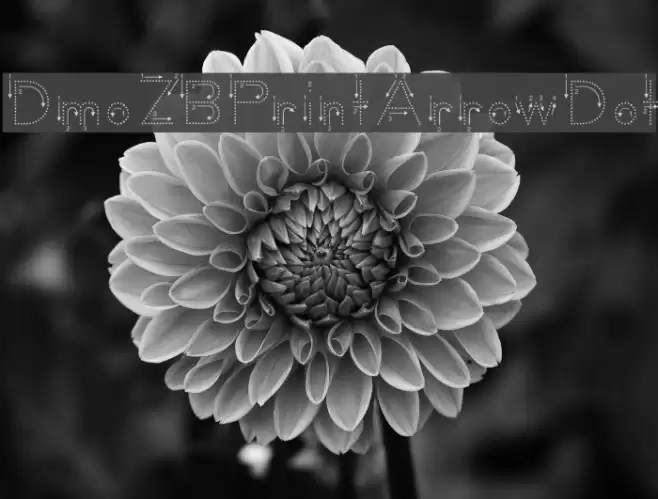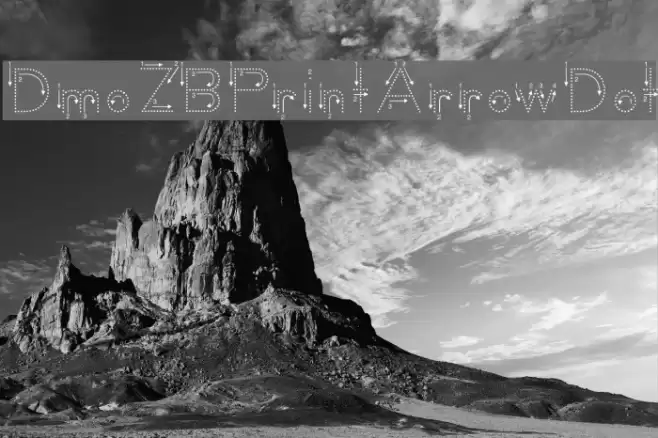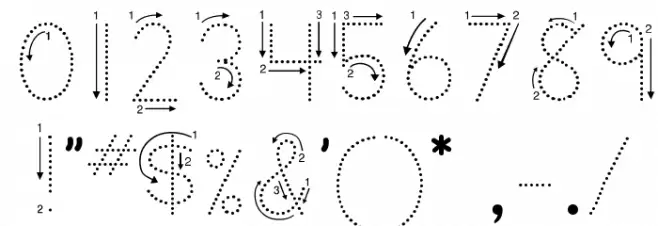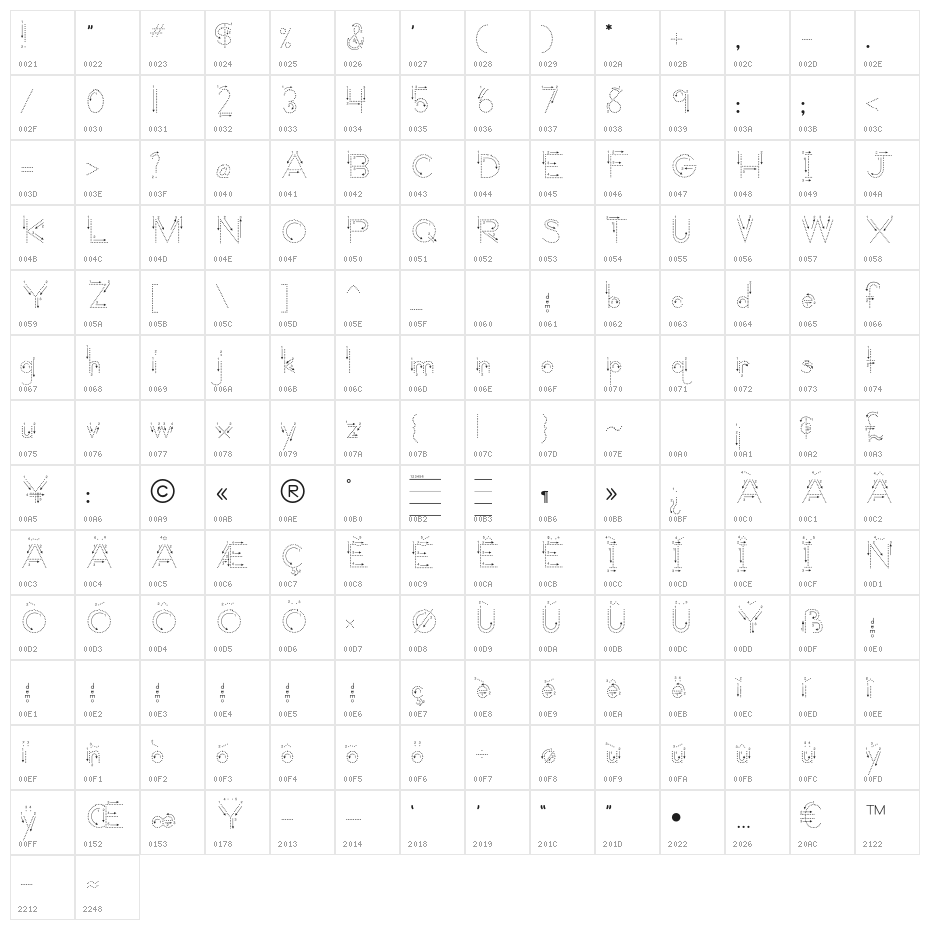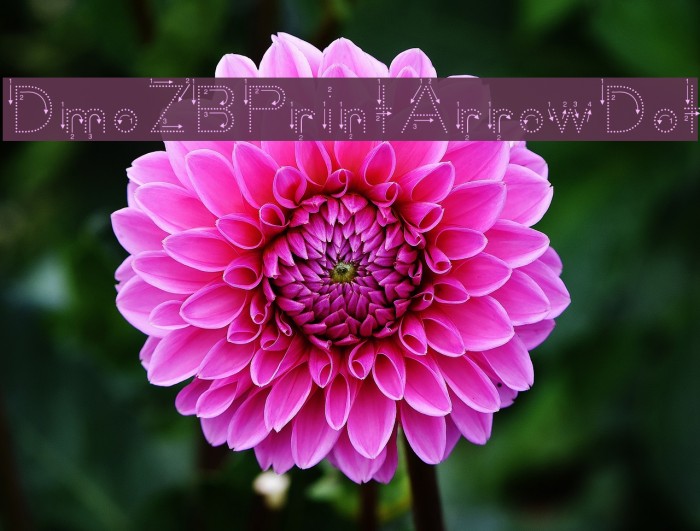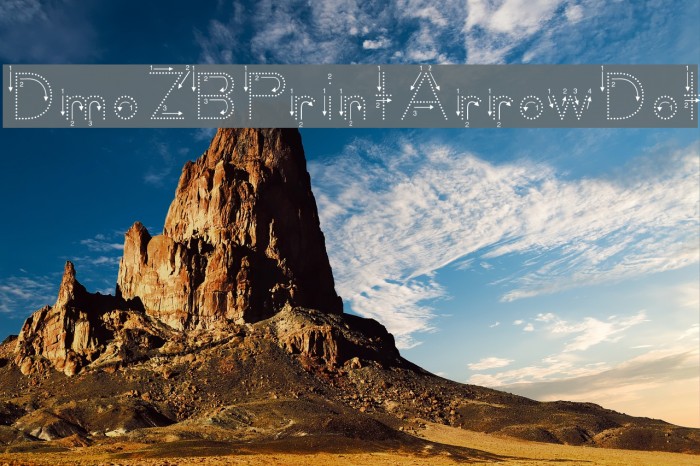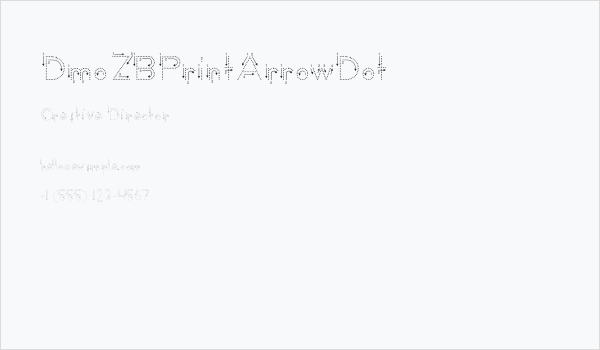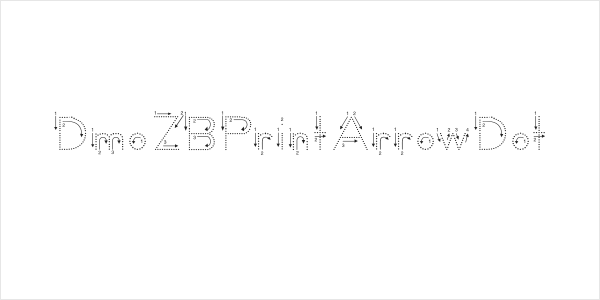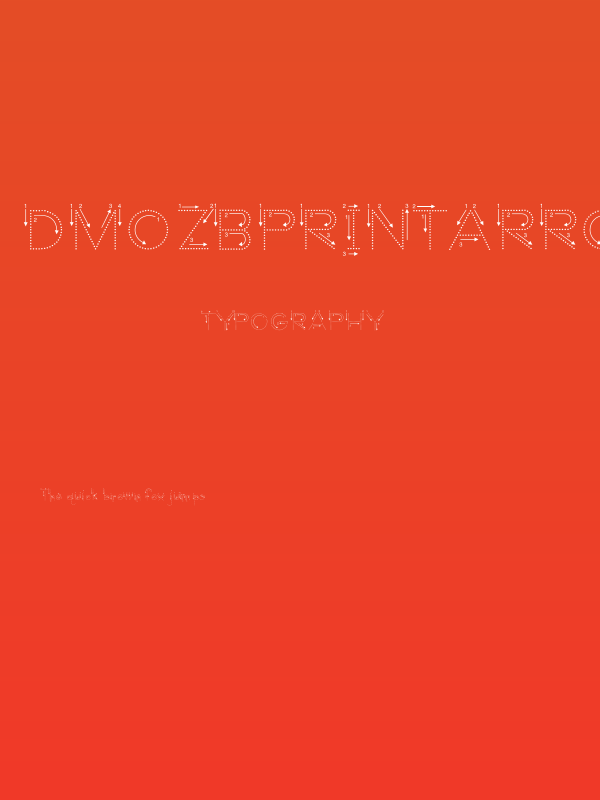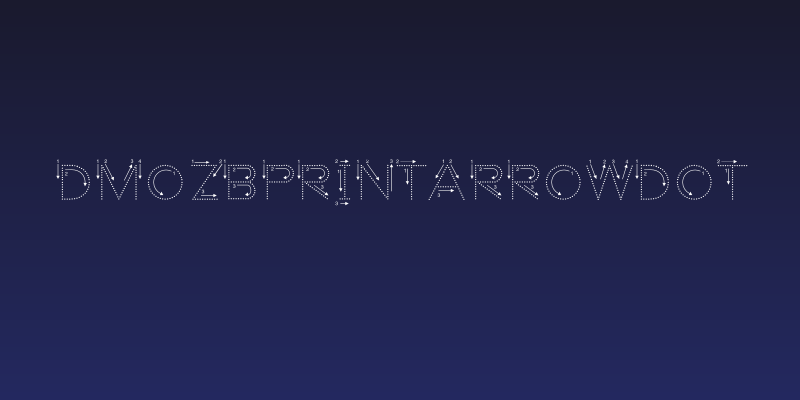
DmoZBPrintArrowDot Font
DmoZBPrintArrowDot Description
This font is designed with a playful and educational style, featuring dotted lines and directional arrows that guide the formation of each character. It is ideal for teaching handwriting, as it visually instructs the user on the correct stroke order and direction. The uppercase and lowercase letters, as well as numbers and special characters, are all presented in a consistent dotted pattern, making it easy to follow. The font's unique design is both functional and engaging, providing a clear visual aid for learners. Its structured yet approachable appearance makes it suitable for educational materials and children's products.
An educational font with dotted lines and arrows for teaching handwriting from Uncategorized fonts.
- Proposed Projects: Ideal for educational materials, handwriting workbooks, children's learning apps, and instructional posters.
- Overall Style: Educational
- Use Case: Instructional materials, children's products.